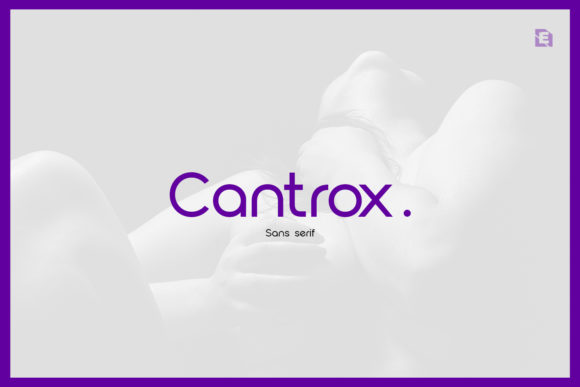
Cantrox Font: Elevate Your Designs with a Minimal and Neat Display Font
In the world of typography, fonts play a crucial role in making or breaking a design. A well-chosen font can elevate your project, making it stand out from the crowd, while a poorly chosen one can have the opposite effect. If you’re on the hunt for a font that can add a touch of sophistication and elegance to your designs, look no further than Cantrox Font. In this article, we’ll delve into the world of Cantrox, exploring its features, benefits, and uses, as well as provide tips on how to make the most of this versatile font.
What is Cantrox Font?
Cantrox Font is a minimal and neat display font designed to make your creative projects shine. Its clean lines, simple shapes, and elegant curves make it an excellent choice for a wide range of applications, from branding and advertising to packaging and digital media. Cantrox is a versatile font that can be used in various contexts, from headlines and titles to body text and captions.
Key Features of Cantrox Font
- Minimalist Design: Cantrox boasts a clean and minimalist design, making it perfect for modern and contemporary projects.
- Neat and Elegant: The font’s neat and elegant curves add a touch of sophistication to any design.
- Highly Versatile: Cantrox can be used in a wide range of projects, from print to digital media.
- Easy to Read: The font’s clear and simple design makes it easy to read, even at small sizes.
Benefits of Using Cantrox Font
So, why choose Cantrox Font for your next project? Here are just a few benefits of using this amazing font:
- Stand Out from the Crowd: Cantrox’s unique design makes it an excellent choice for projects that need to stand out from the competition.
- Enhance Your Brand: The font’s elegant and sophisticated design can help elevate your brand’s image and reputation.
- Increase Legibility: Cantrox’s clear and simple design makes it easy to read, reducing eye strain and improving user experience.
- Flexibility: The font’s versatility makes it suitable for a wide range of projects, from digital media to print materials.
How to Use Cantrox Font
Now that we’ve covered the benefits of Cantrox Font, let’s explore some tips on how to make the most of this amazing font:
- Pair it with Other Fonts: Cantrox pairs well with other fonts, making it easy to create stunning font combinations.
- Use it for Headlines: The font’s bold and elegant design makes it perfect for headlines and titles.
- Experiment with Colors: Cantrox looks great in a variety of colors, so don’t be afraid to experiment and find the perfect hue for your project.
- Use it for Digital Media: Cantrox is optimized for digital media, making it an excellent choice for websites, social media, and more.
Cantrox Font in Graphic Design
Cantrox Font is an excellent choice for graphic designers looking to add a touch of elegance and sophistication to their projects. Here are just a few ways you can use Cantrox in graphic design:
- Branding: Use Cantrox to create stunning brand identities, including logos, business cards, and letterheads.
- Advertising: The font’s bold and elegant design makes it perfect for advertising campaigns, including print ads, billboards, and digital banners.
- Packaging: Cantrox is an excellent choice for packaging design, adding a touch of sophistication to product labels and packaging materials.
Cantrox Font in Digital Media
Cantrox Font is optimized for digital media, making it an excellent choice for websites, social media, and more. Here are just a few ways you can use Cantrox in digital media:
- Websites: Use Cantrox to create stunning website headers, titles, and body text.
- Social Media: The font’s clean and elegant design makes it perfect for social media graphics, including Facebook posts, Twitter headers, and Instagram stories.
- Email Marketing: Cantrox is an excellent choice for email marketing campaigns, adding a touch of sophistication to newsletters and promotional emails.
In conclusion, Cantrox Font is a minimal and neat display font that’s perfect for creative projects that need to stand out from the crowd. Its elegant and sophisticated design makes it an excellent choice for a wide range of applications, from branding and advertising to packaging and digital media. With its versatility, legibility, and flexibility, Cantrox is an excellent addition to any designer’s font library.
- What is Cantrox Font? Cantrox Font is a minimal and neat display font designed for creative projects.